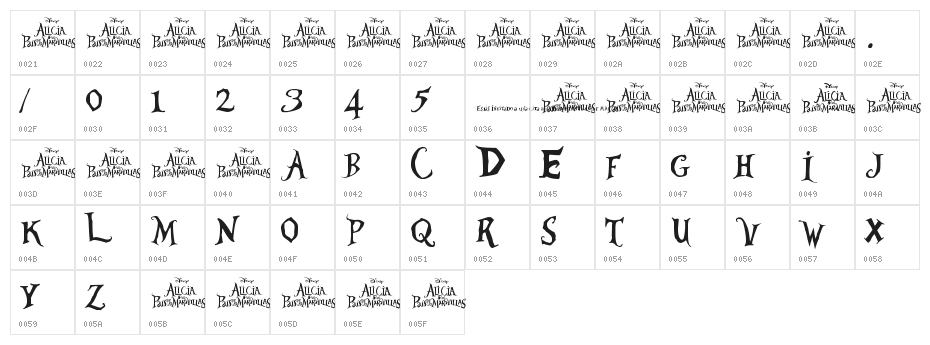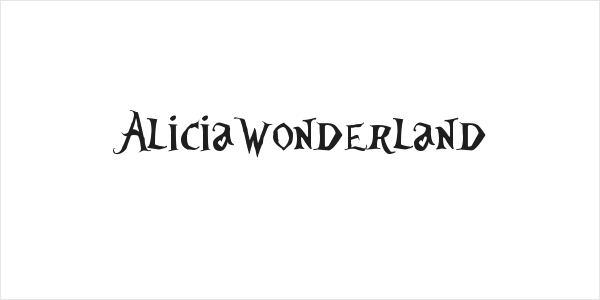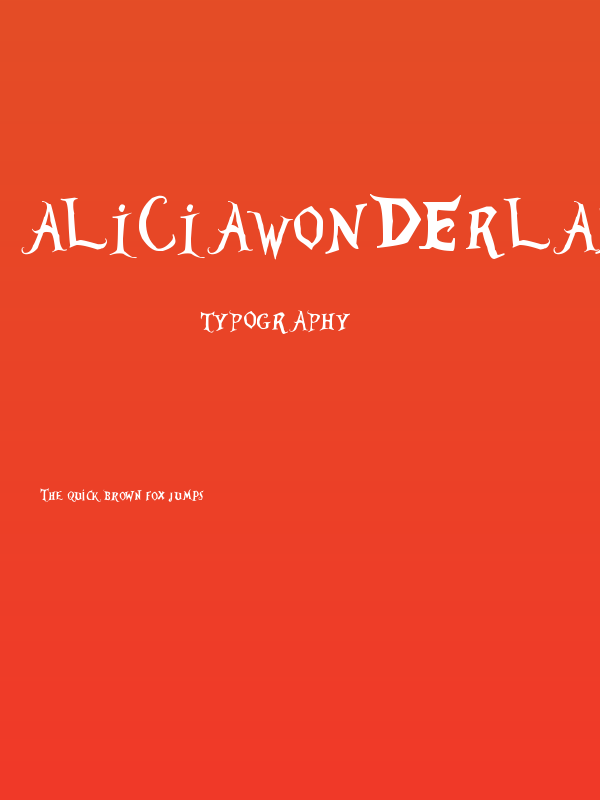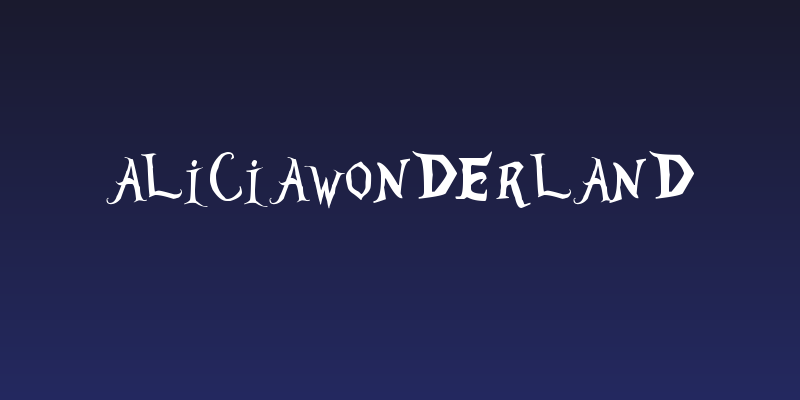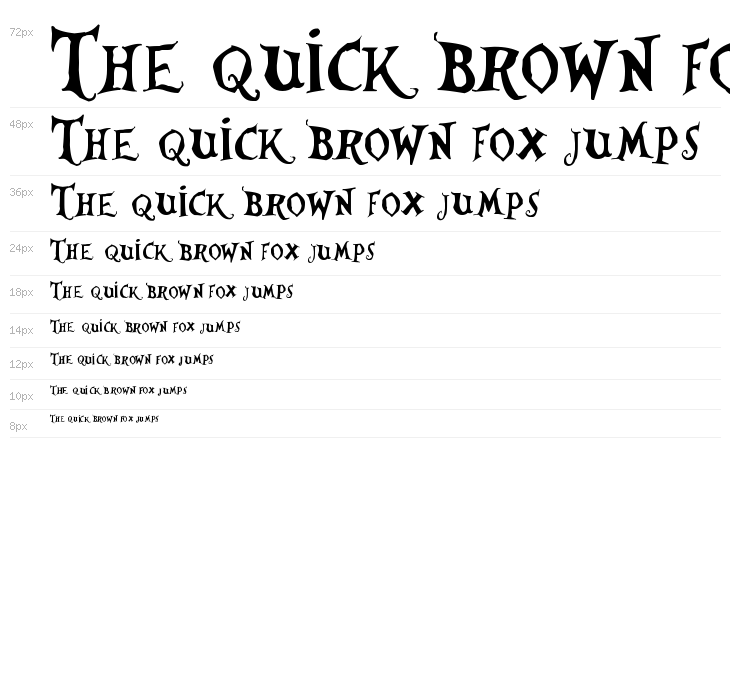
AliciaWonderland Font
AliciaWonderland Description
This font exudes a whimsical and enchanting style, reminiscent of fairy tales and fantasy worlds. The characters are crafted with a playful, yet elegant flair, featuring exaggerated serifs and varying stroke widths that add a dynamic and lively feel. The uppercase letters are bold and prominent, while the lowercase letters maintain a consistent flow with subtle curves and flourishes. The numbers are equally stylized, maintaining the overall theme of fantasy and magic. This font is perfect for creating a sense of wonder and imagination, making it ideal for projects that require a touch of the extraordinary.
| Overall Style | Whimsical, Fantasy |
| Proposed Projects | Ideal for fantasy book covers, children's storybooks, themed event invitations, and magical branding projects. |